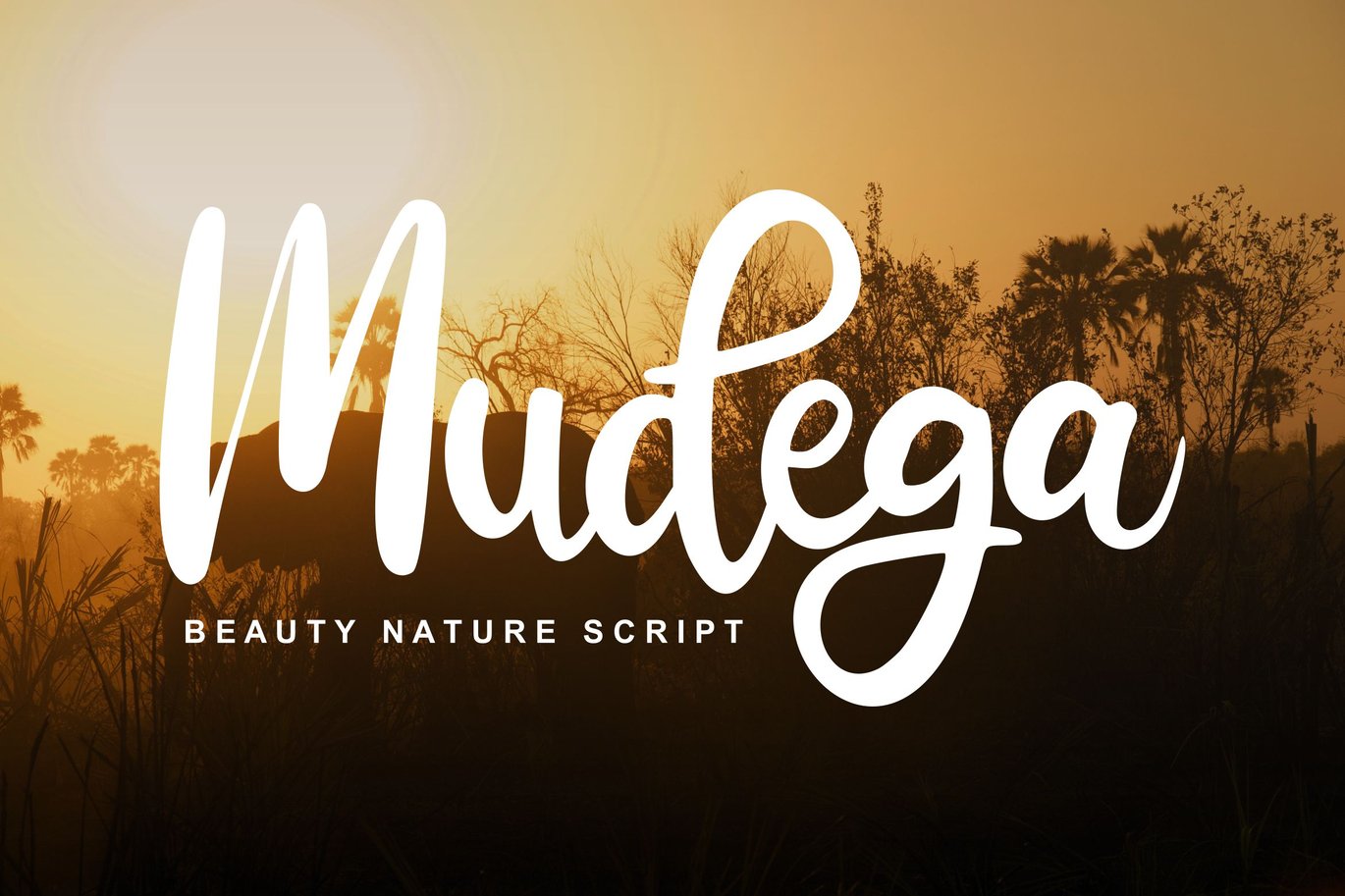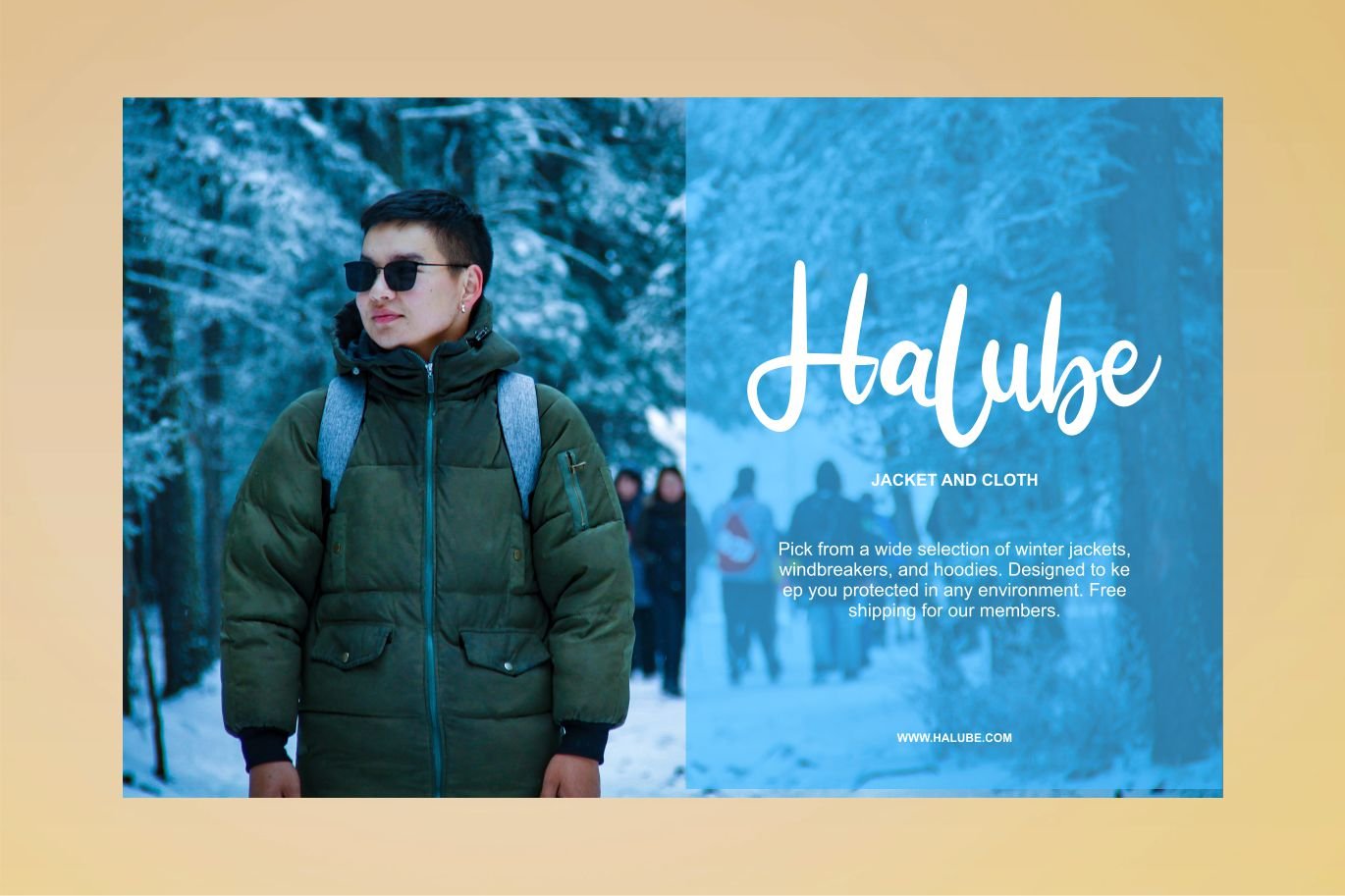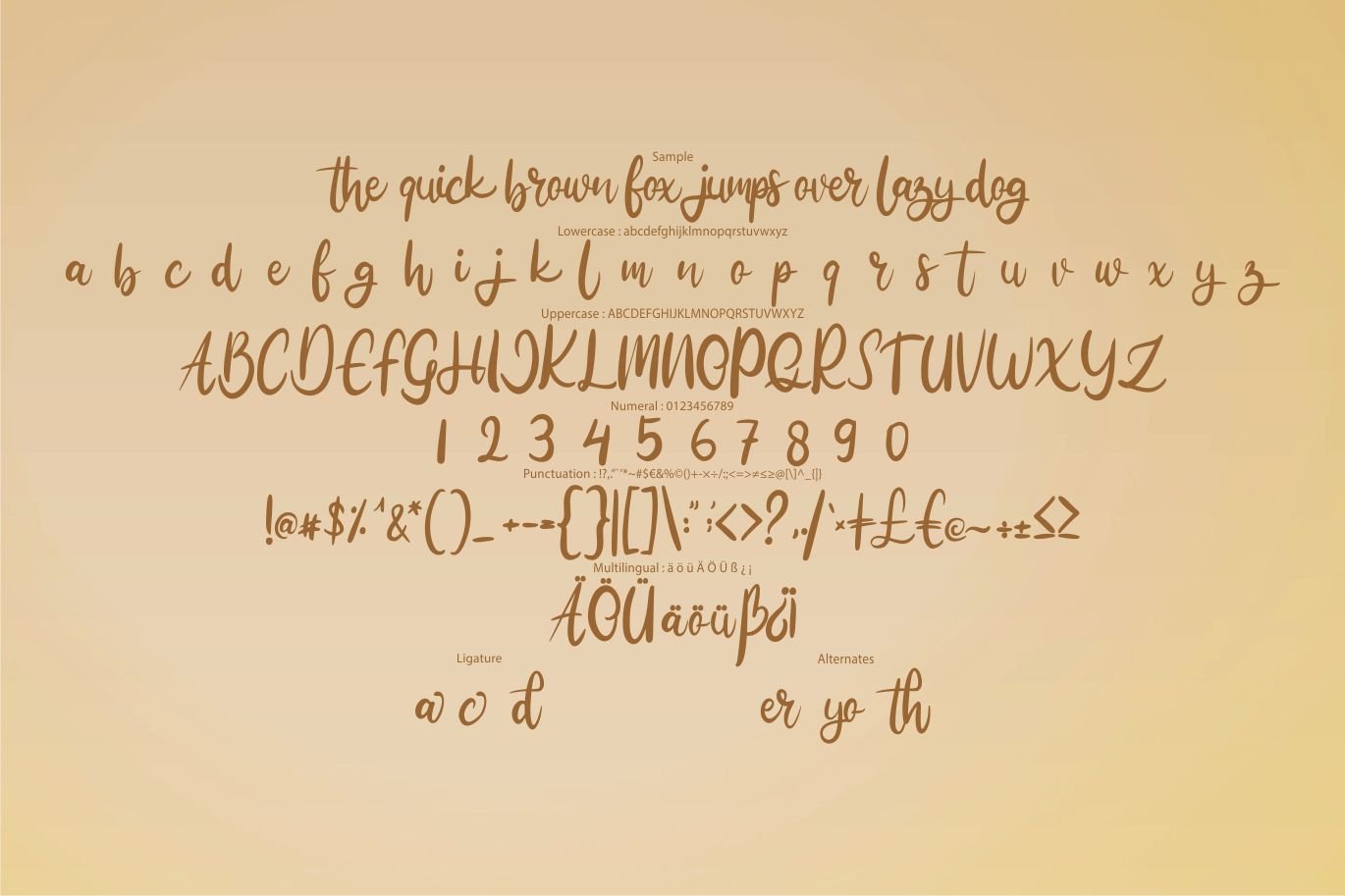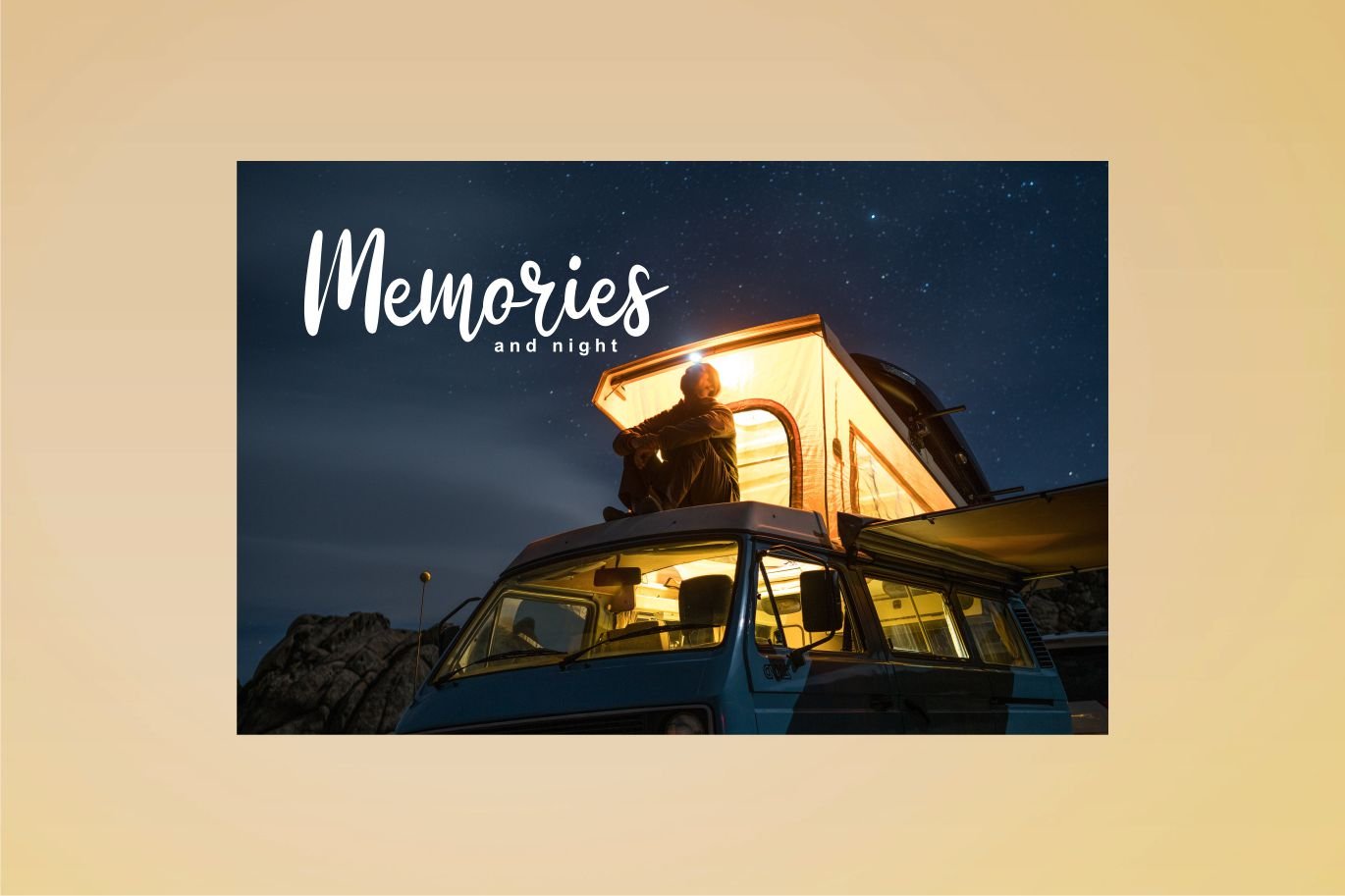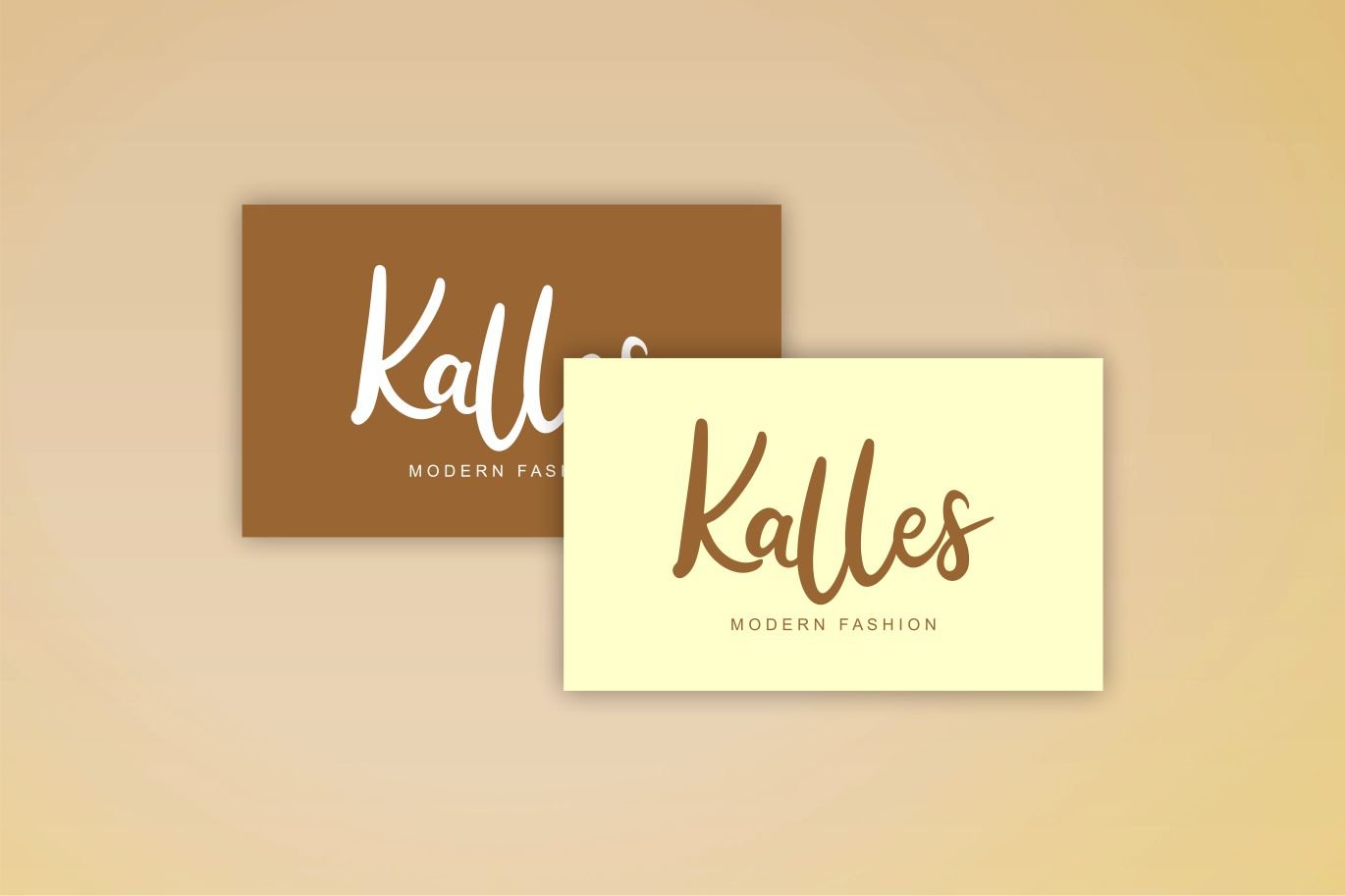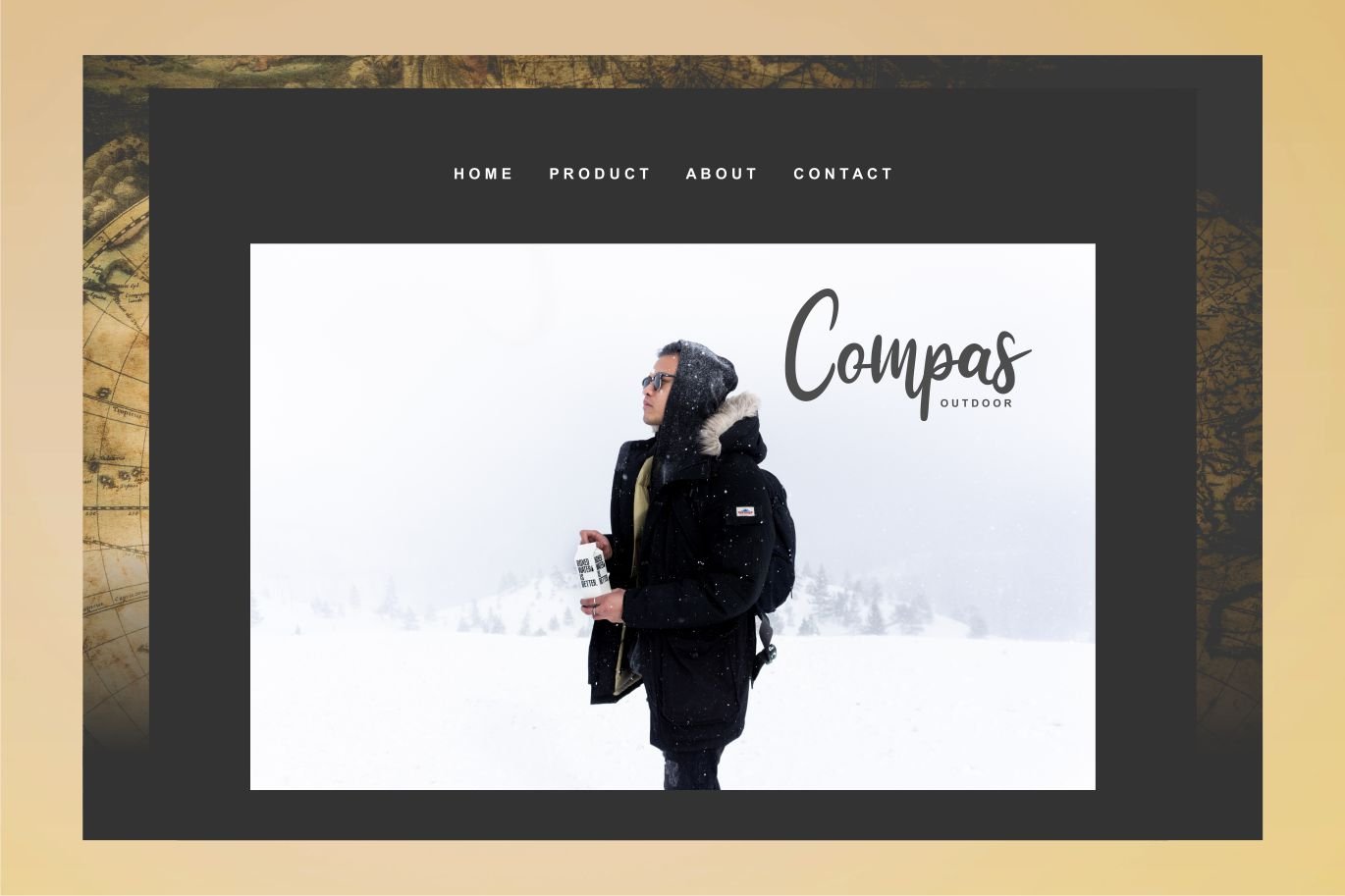
Mudega | Beauty Nature Script Font
**Mudega | Beauty Nature Script Font ** with a calligraphy style, So beautiful on invitation like greeting cards, branding materials, business cards, quotes, posters, and more!